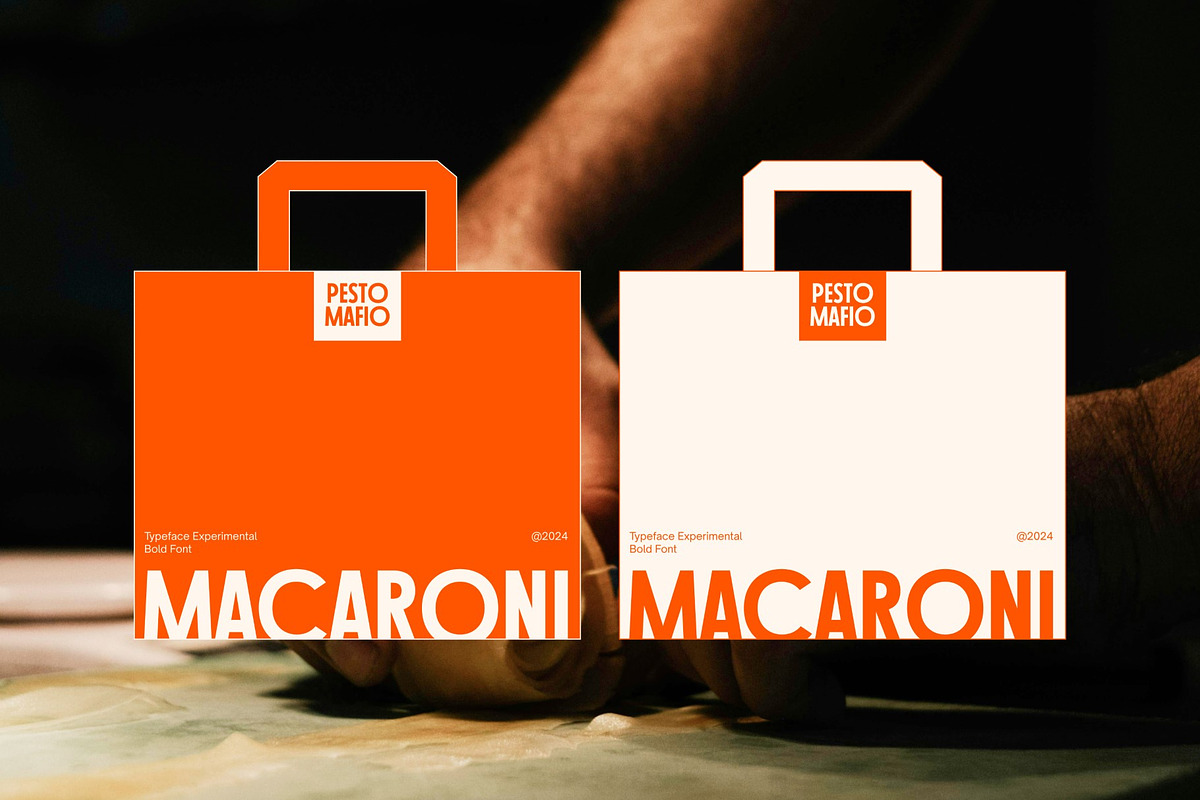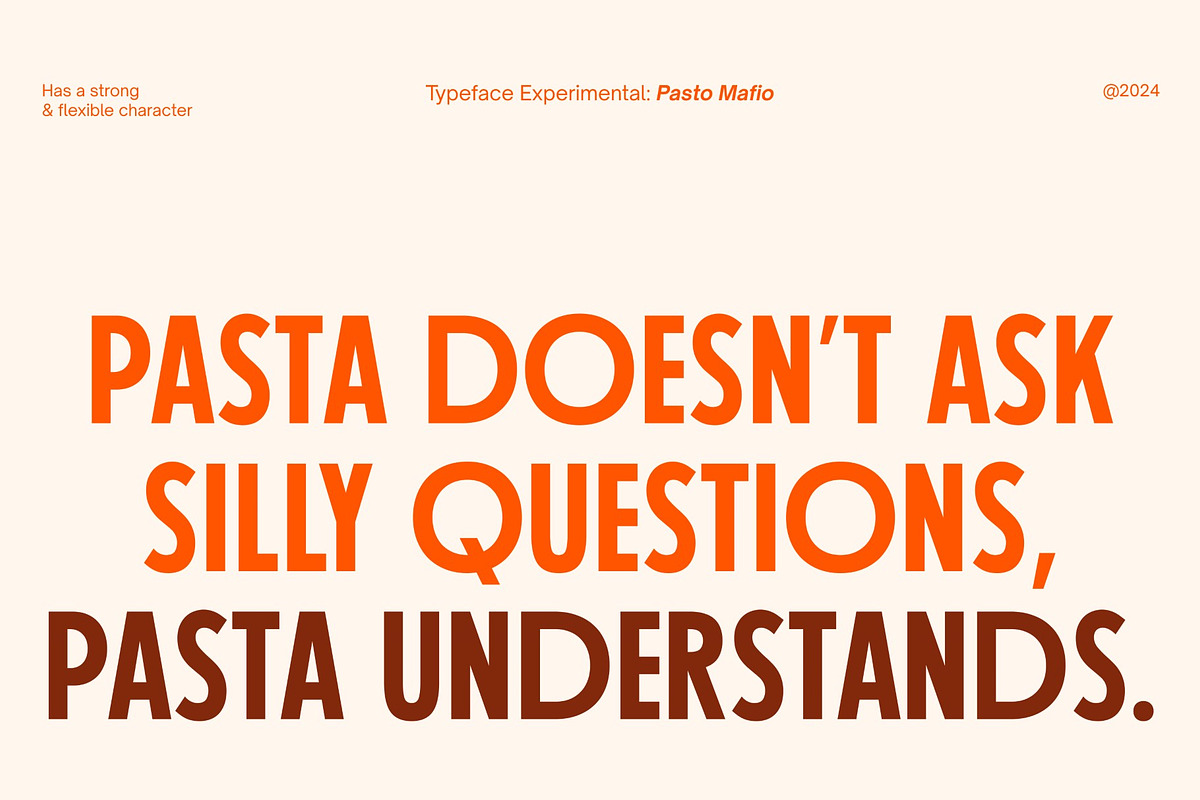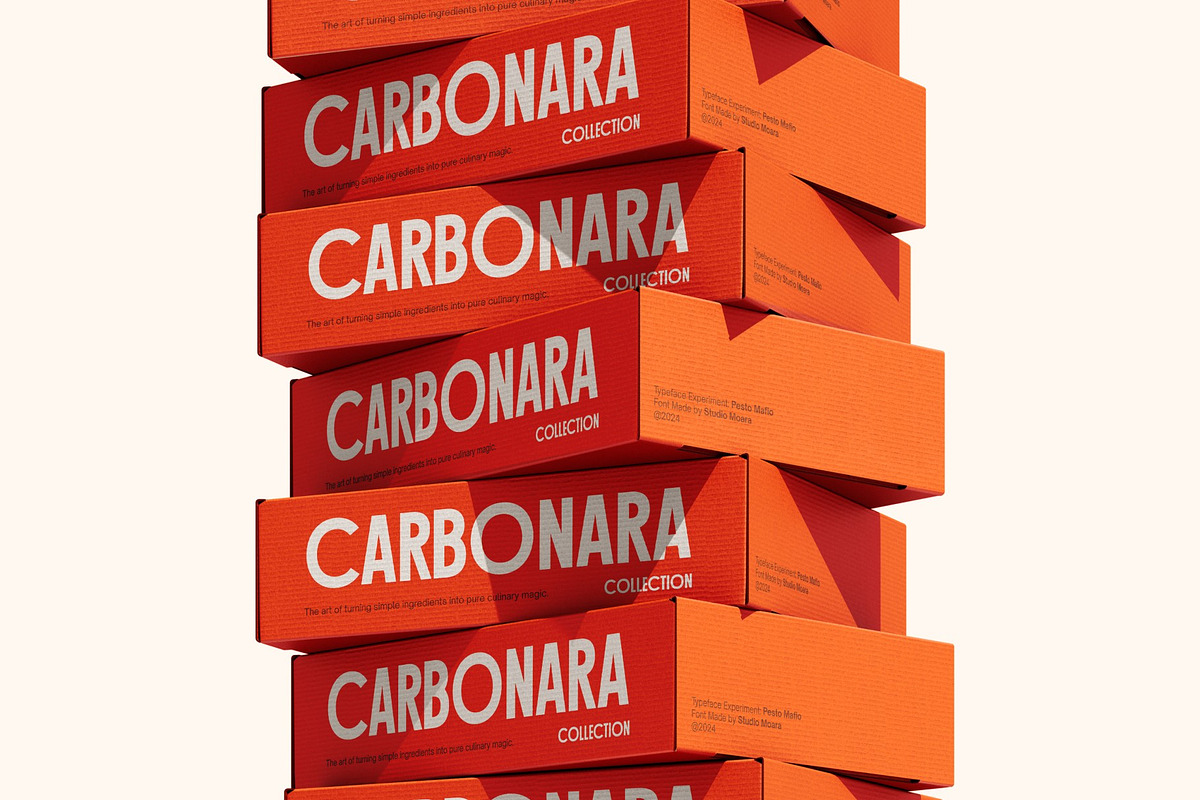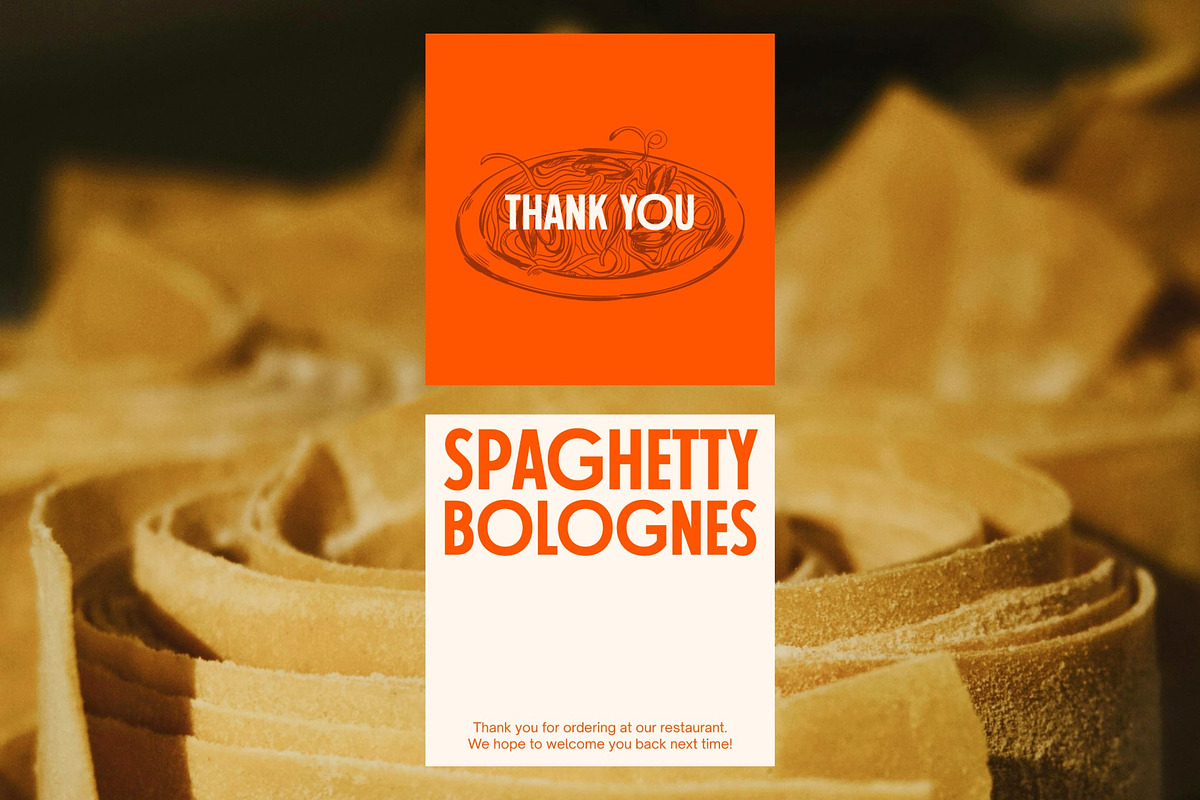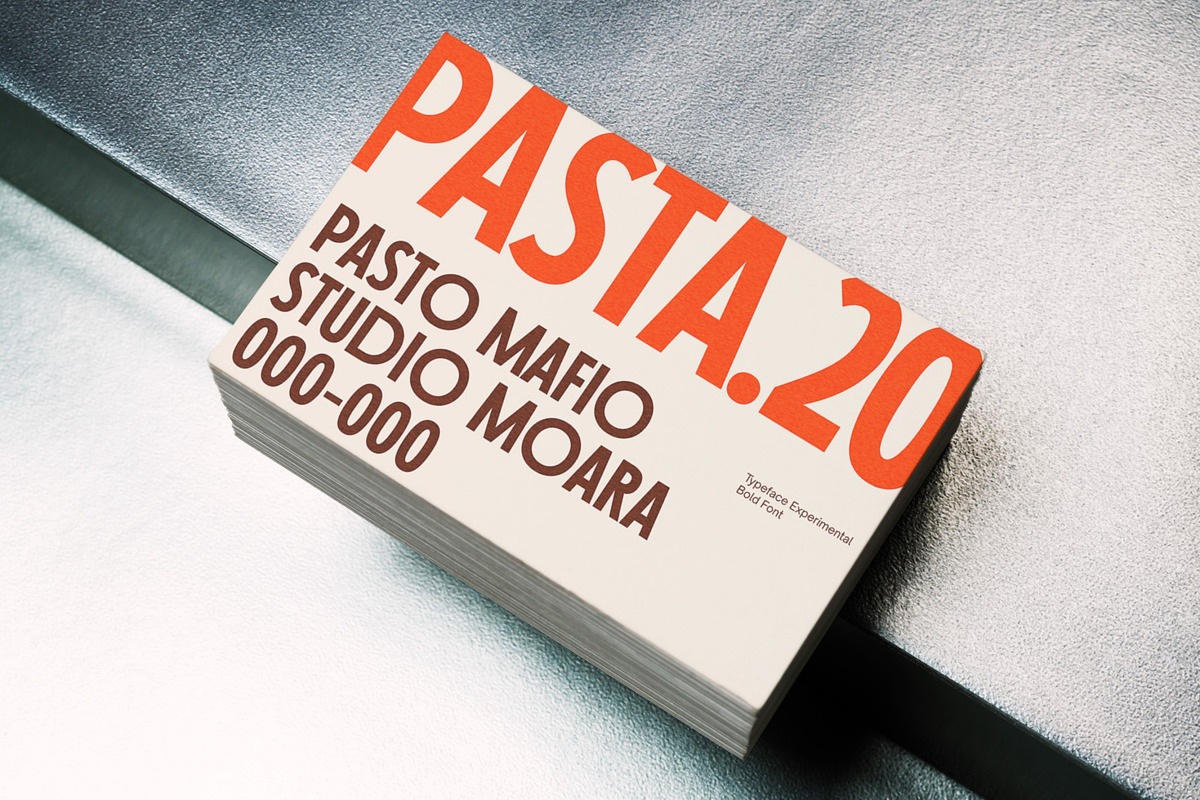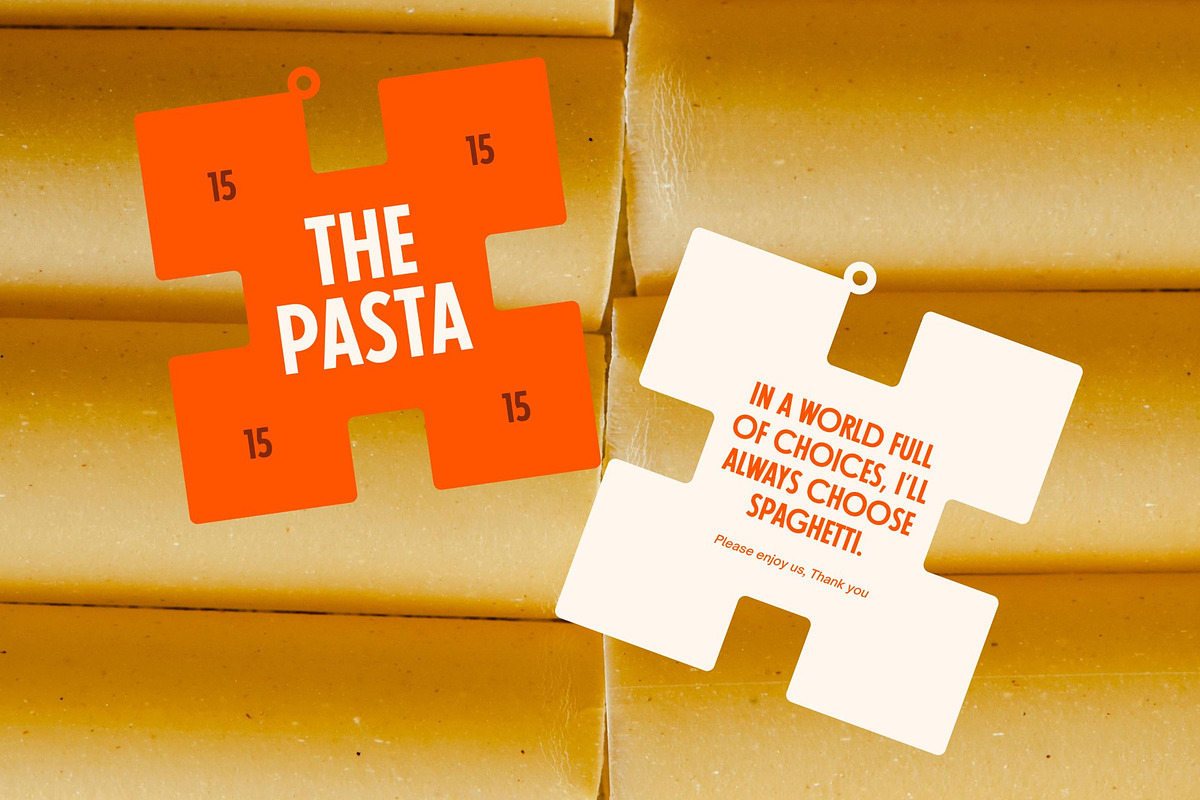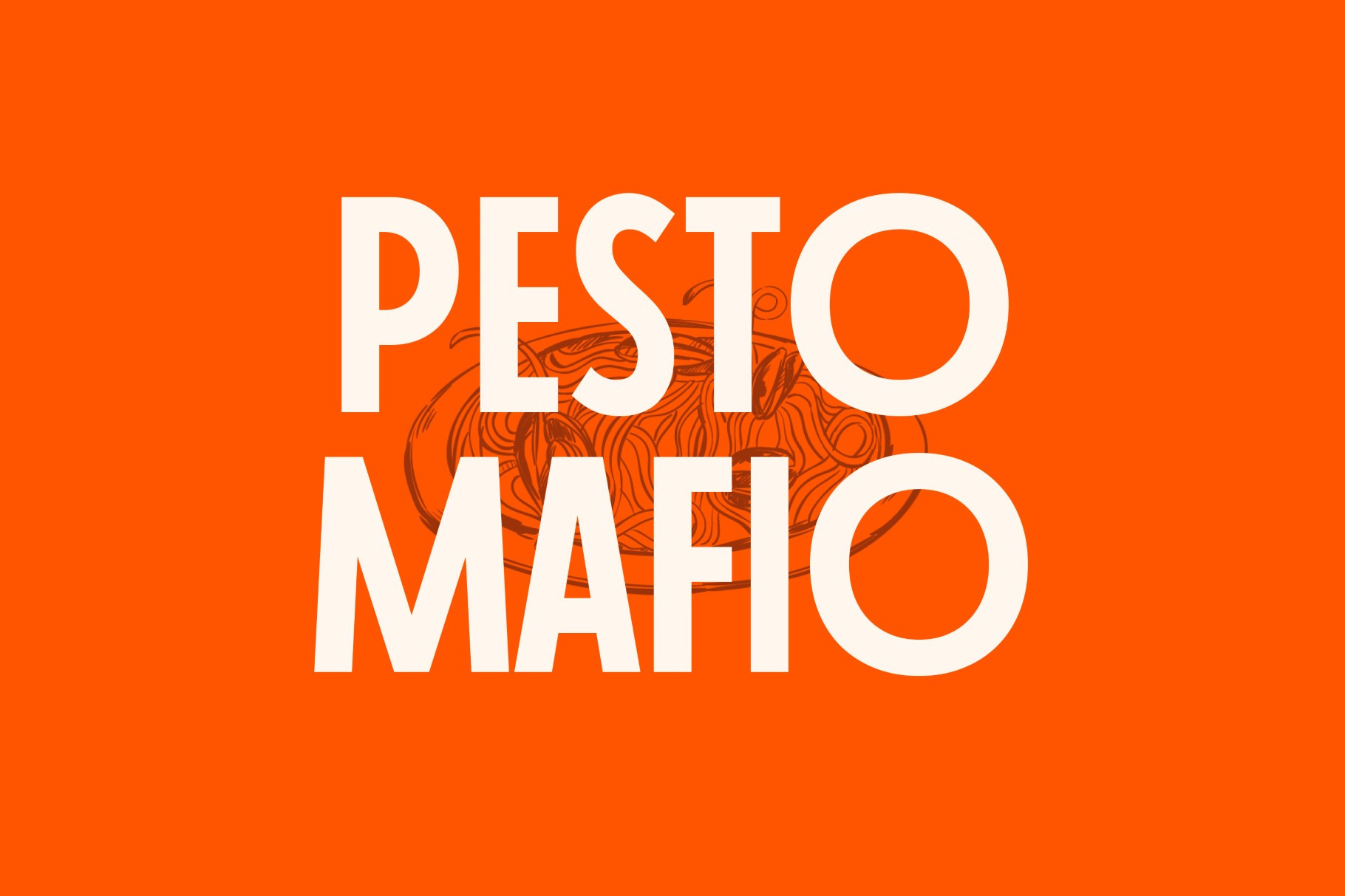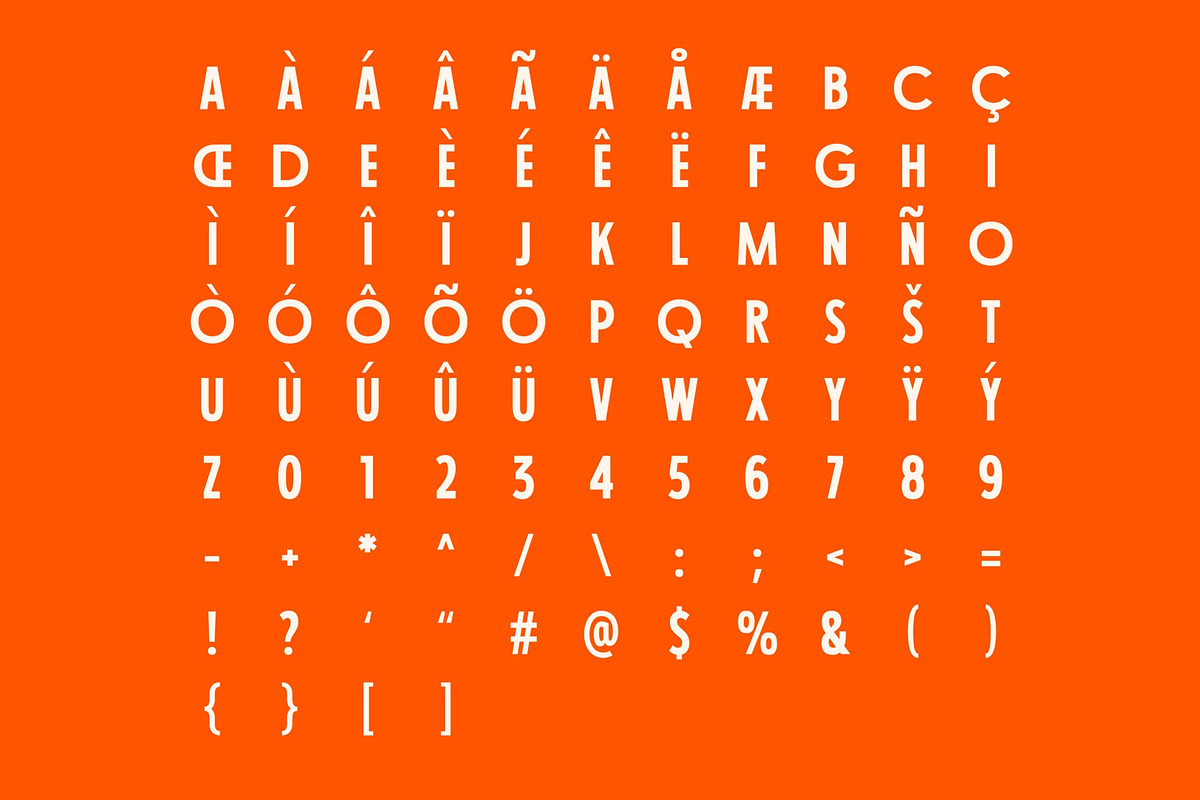
Pesto Mafio - Bold Sans-Serif Font
Pesto Mafio is a bold, impactful sans-serif font perfect for making a statement. With its strong, condensed letterforms, it commands attention in headlines, logos, and branding. Inspired by Italian design, Pesto Mafio offers a touch of classic style with a modern edge. Ideal for projects needing a powerful and memorable typographic presence.